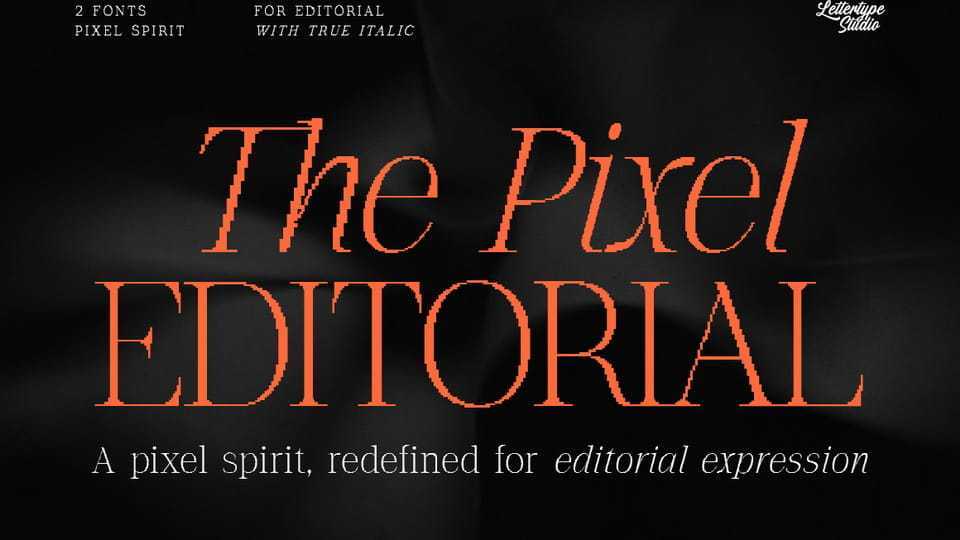
Download The Pixel Editorial font, a contemporary serif typeface that reinterprets pixel aesthetics through an editorial lens. Built on an integer-based grid system, it preserves the crisp, sharp rendering of pixel typography.
Designer: Lettertype Studio